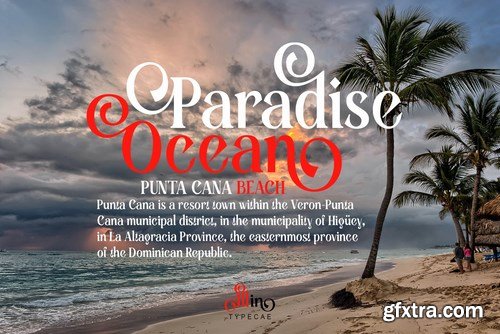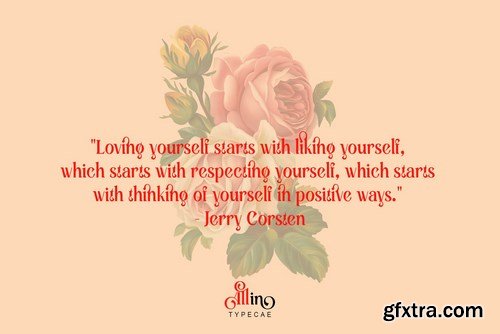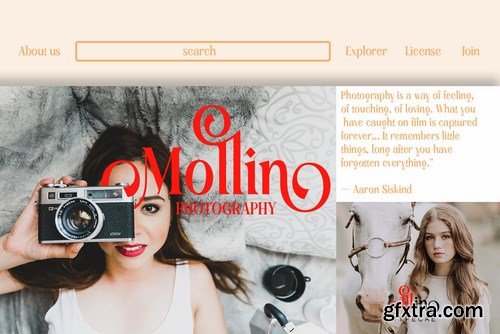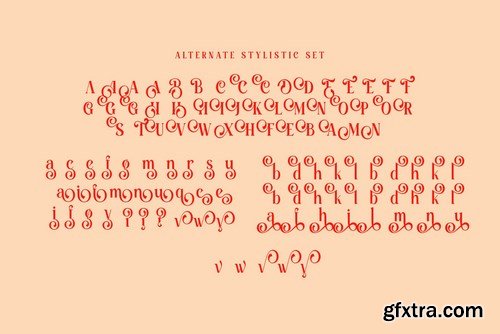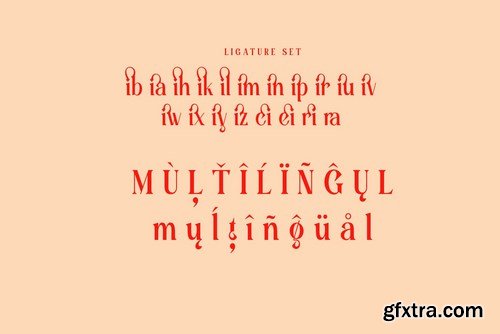
hello !! this time I released a new product called “all in” which has an elegant and modern style.This font is suitable for invitation cards, decorations, clothing products, greeting cards and others. This font also has uppercase, lowercase, numeric, puntuation and multilingual. and there are several ligature and stylistic alternate.